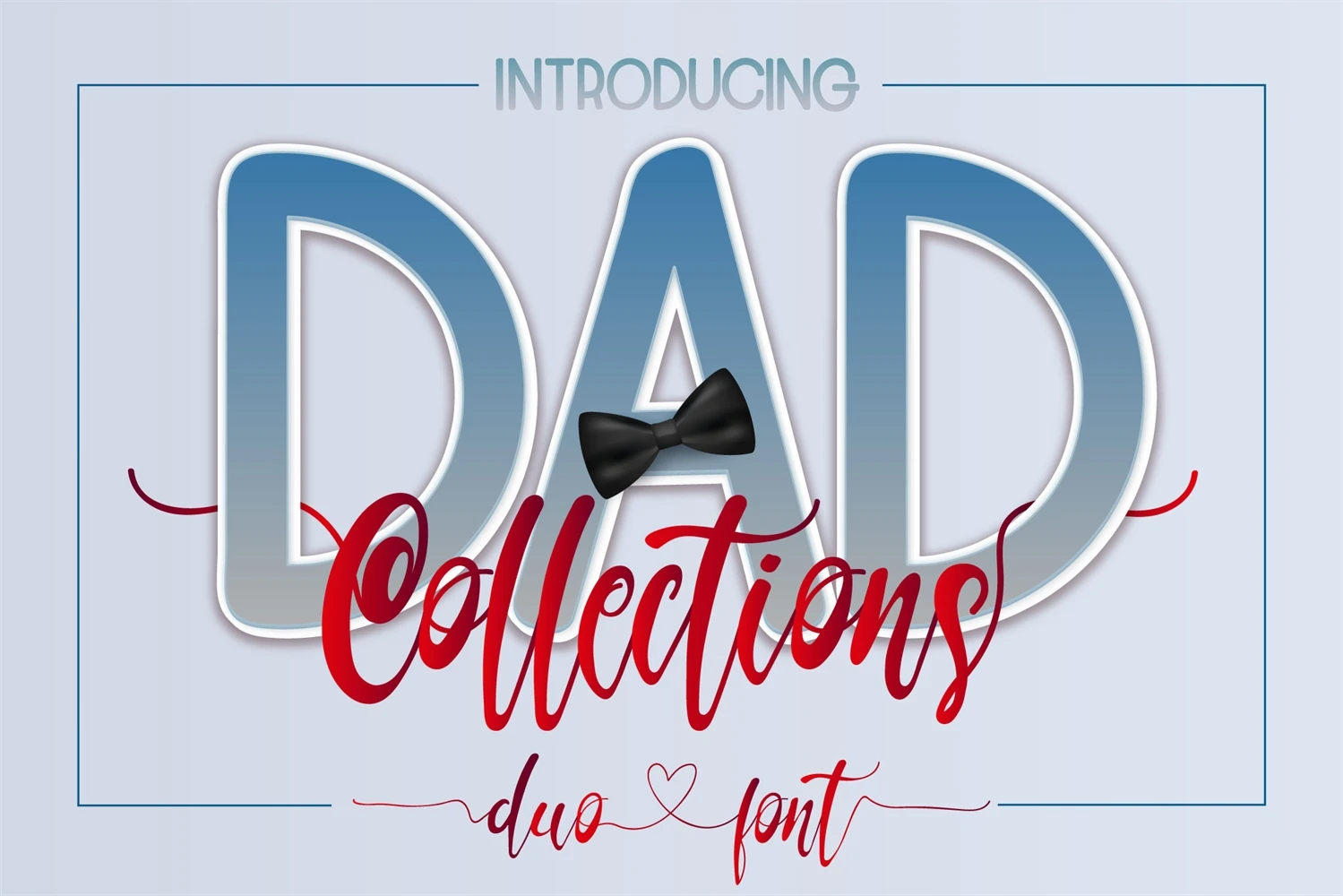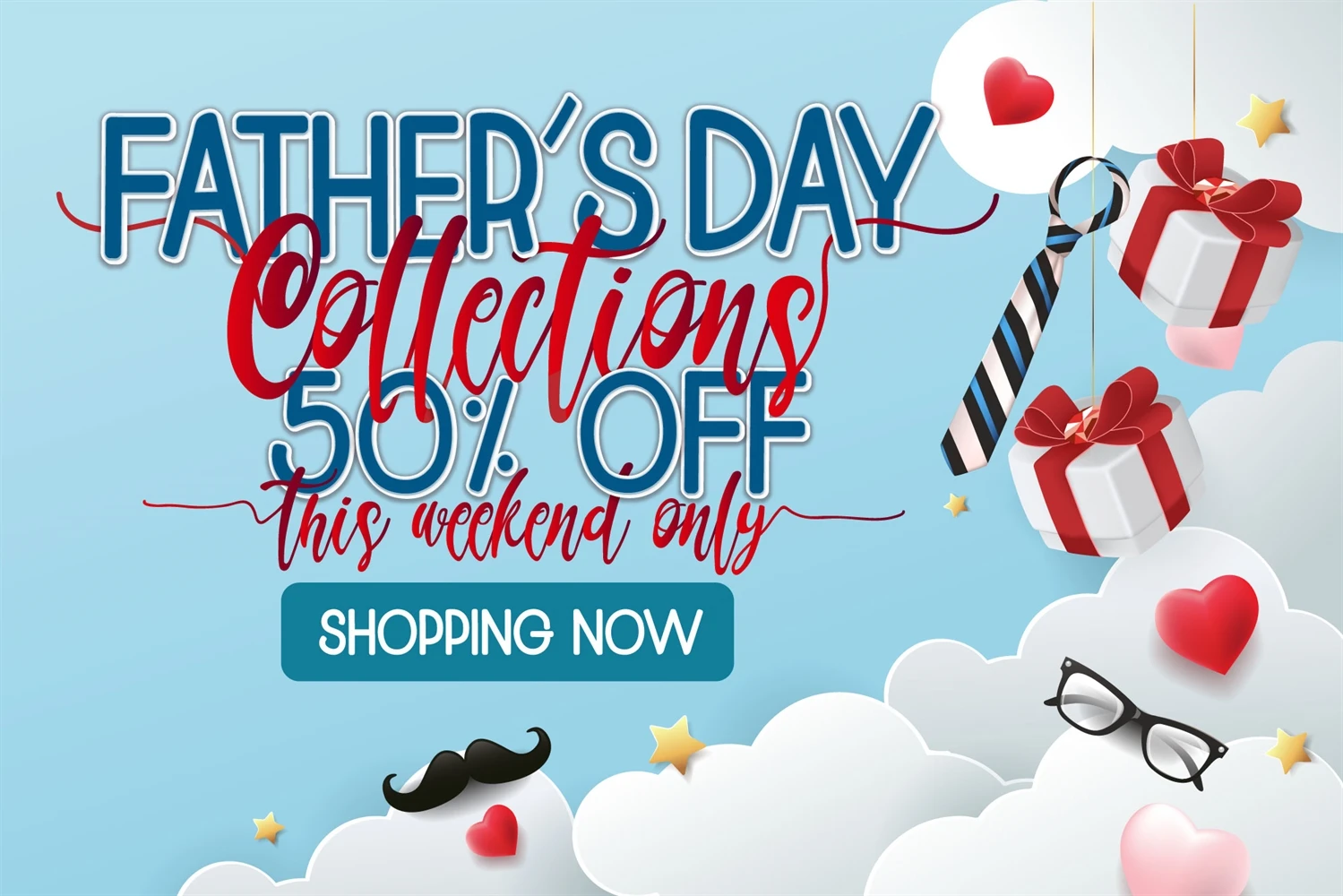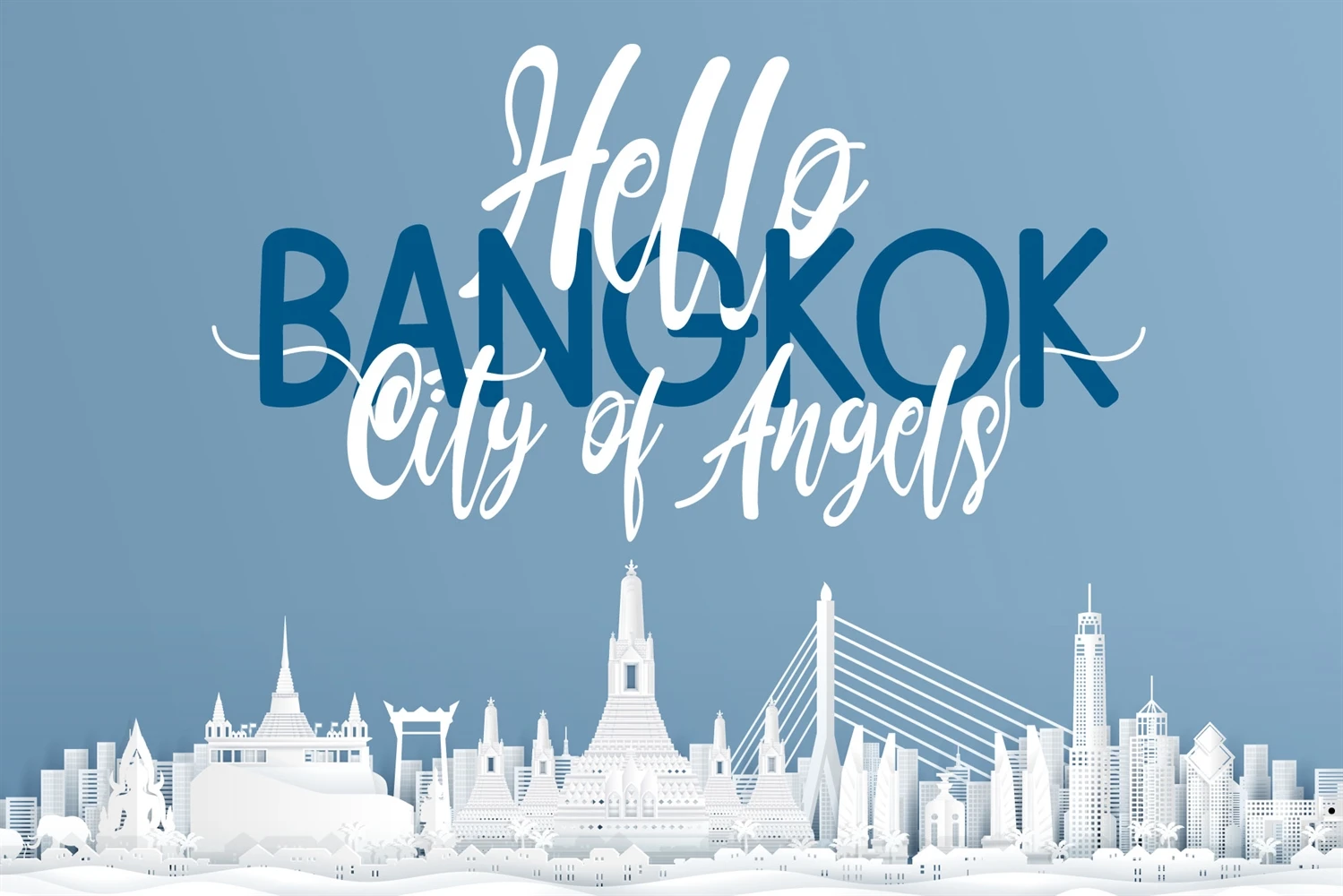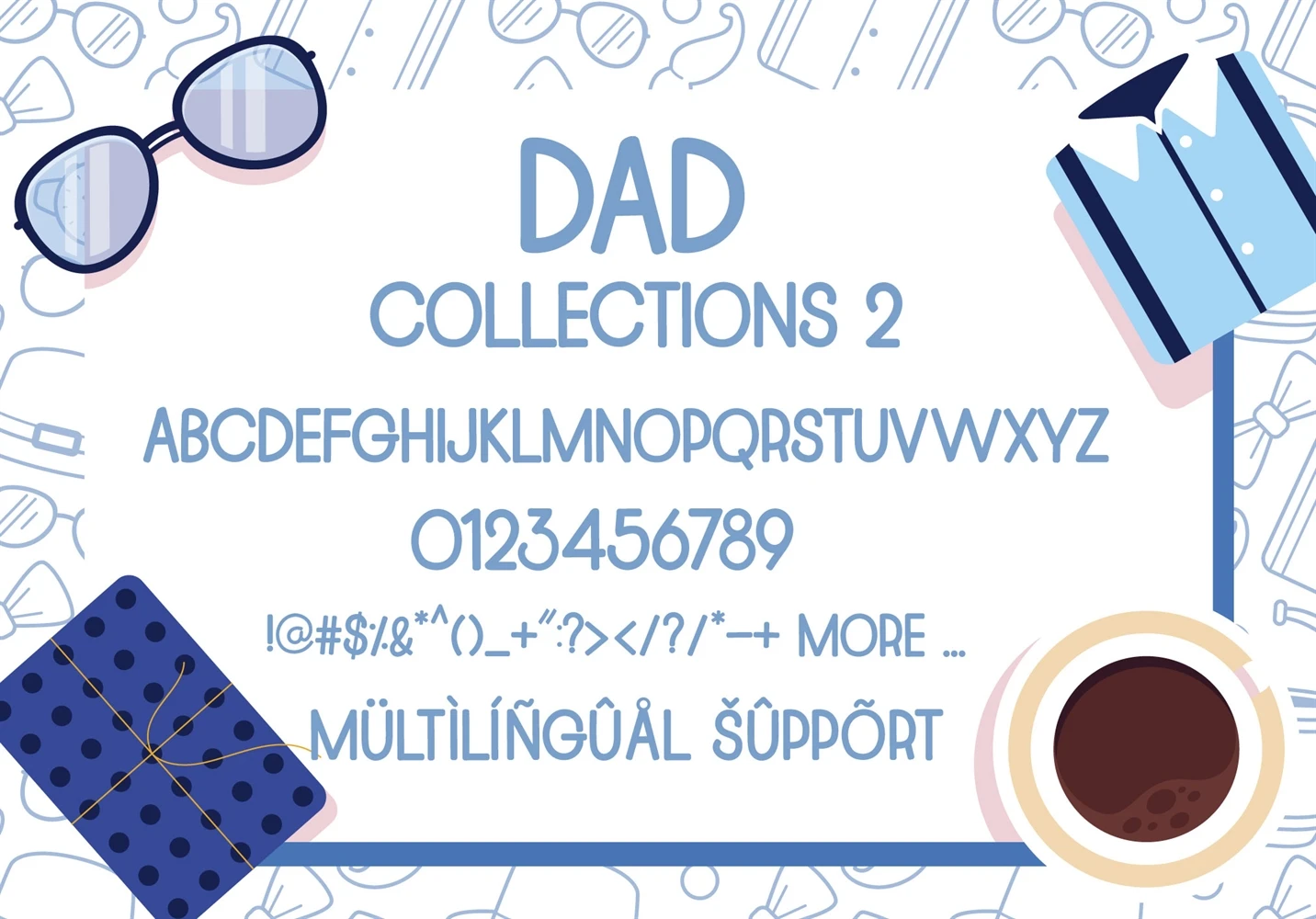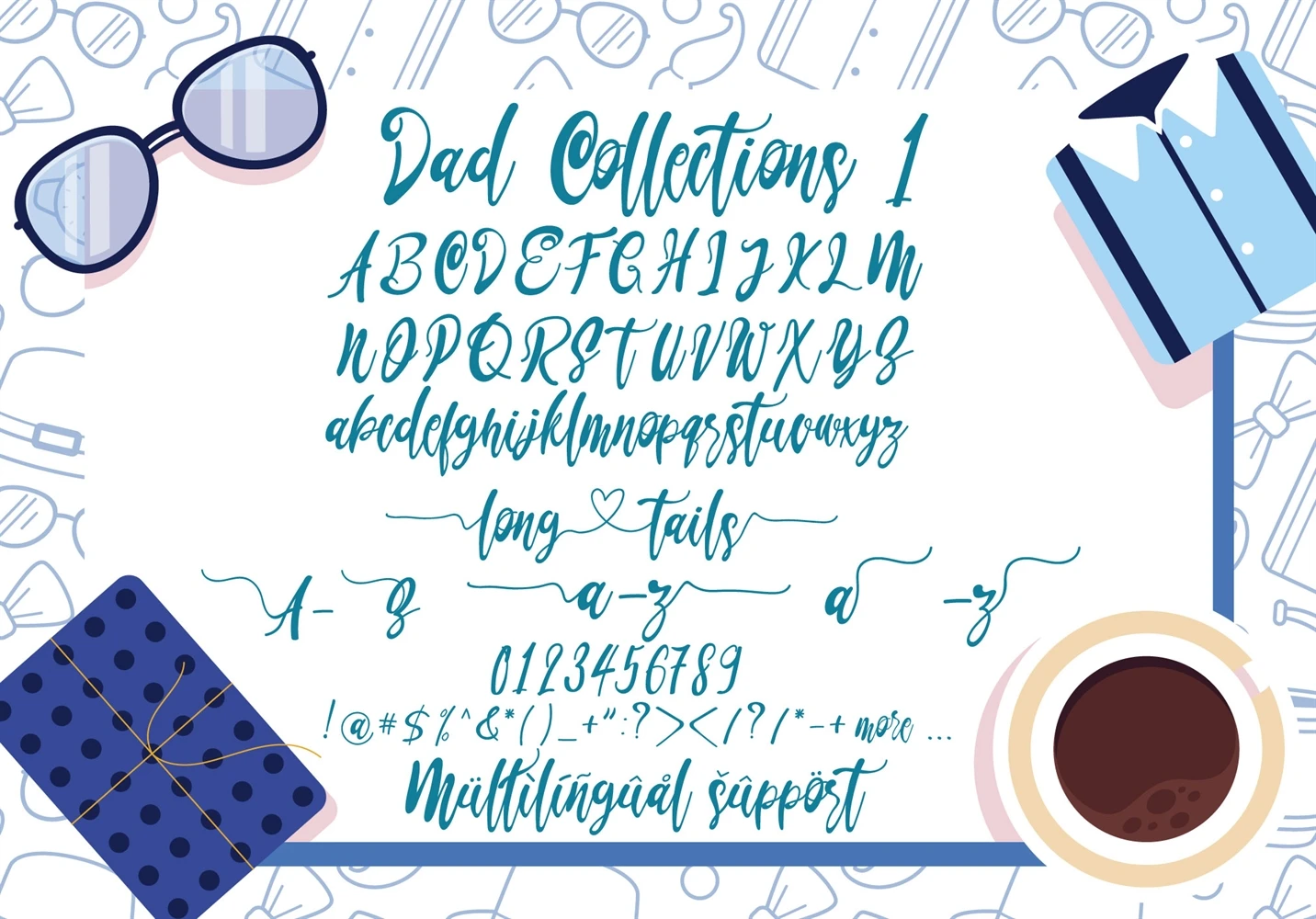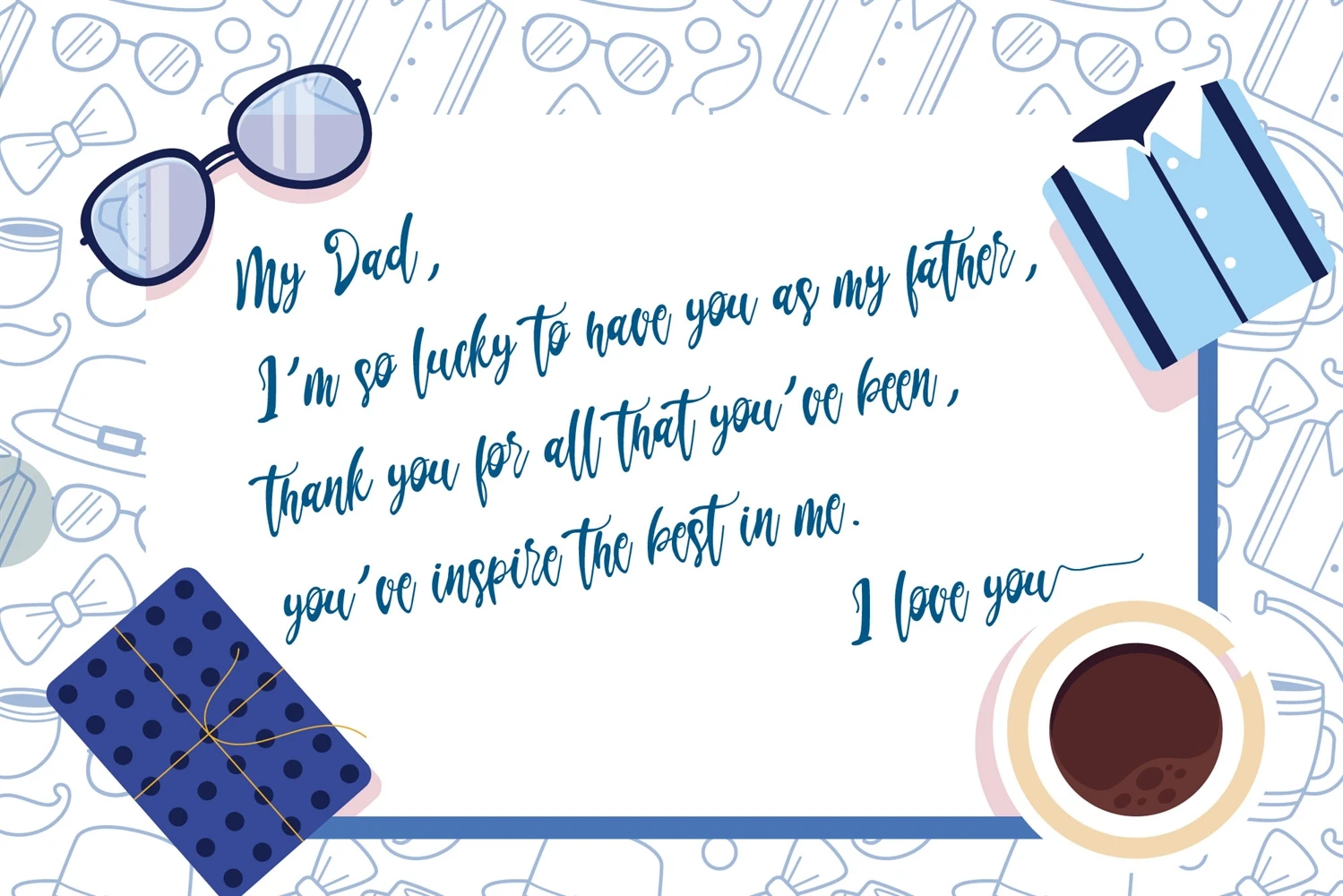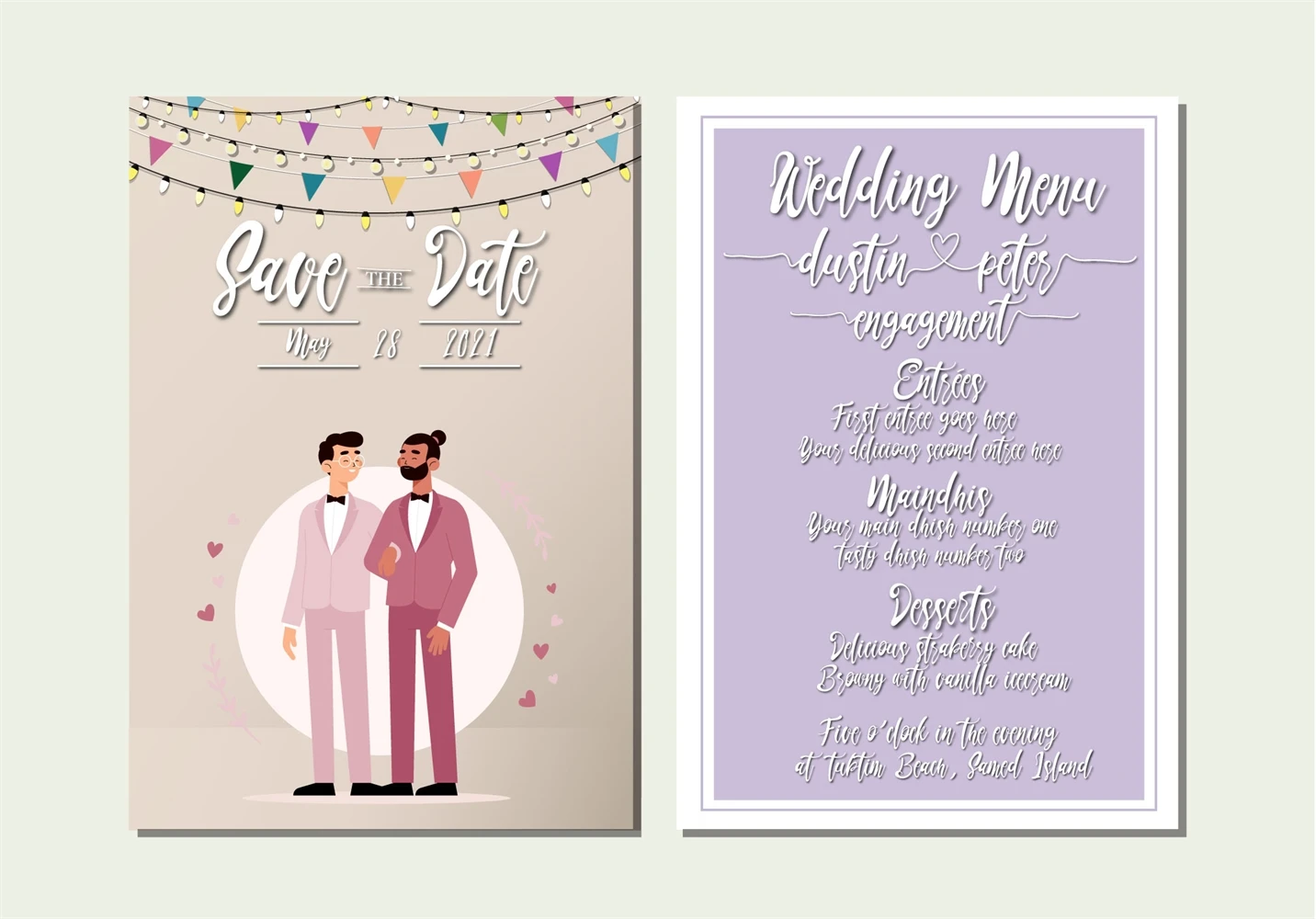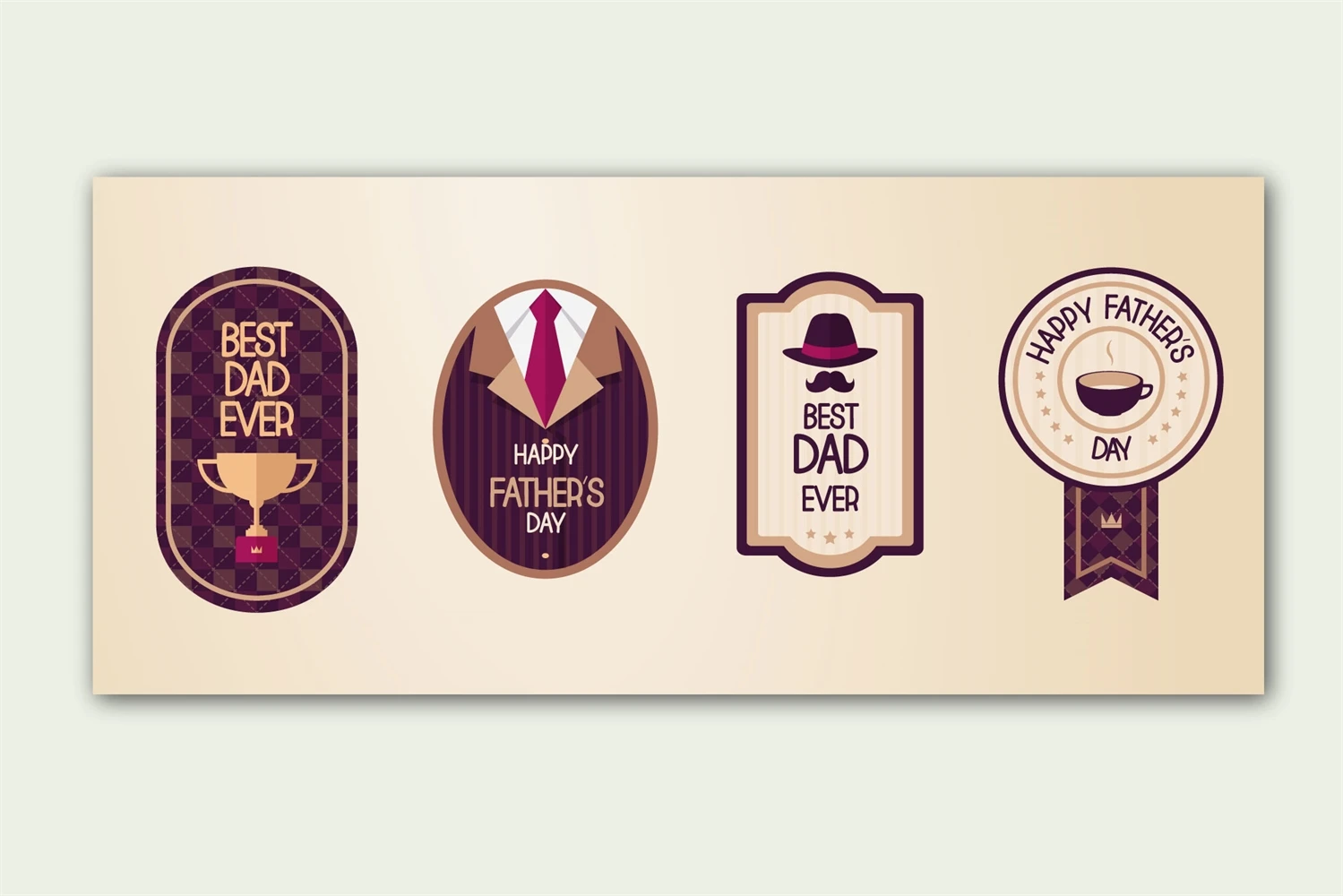
Introducing Dad Collections, a versatile duo font consisting of a modern script and display font that's perfect for a wide range of design projects. Whether you're designing wedding invitations, postcards, magazines, or any other project, Dad Collections adds a touch of elegance and sophistication to your work. With its clean lines, stylish curves, and legible characters, this font is sure to become a favorite in your design arsenal.